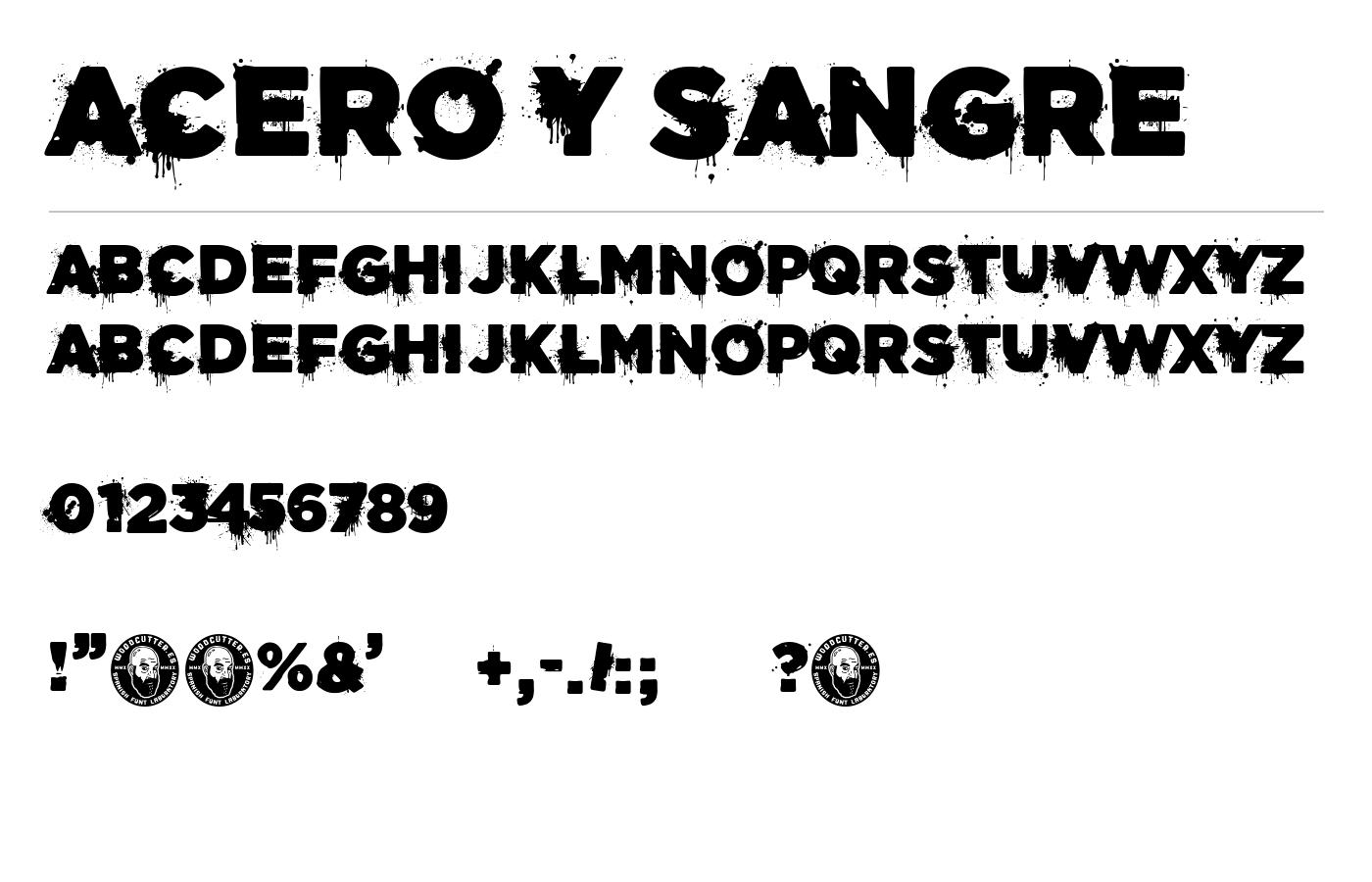
Acero y Sangre is a bold, distressed sans serif font with a heavy, wide stance and dramatic drip-like textures that give it a gritty, edgy feel. Its strong, blocky letterforms and high contrast between solid strokes and rough, irregular edges make it perfect for impactful headlines, posters, or branding that demands a rebellious, urban vibe. This font works best in designs seeking a raw, intense personality that stands out with attitude and visual punch.
Acero y Sangre Font
About Acero y Sangre Font